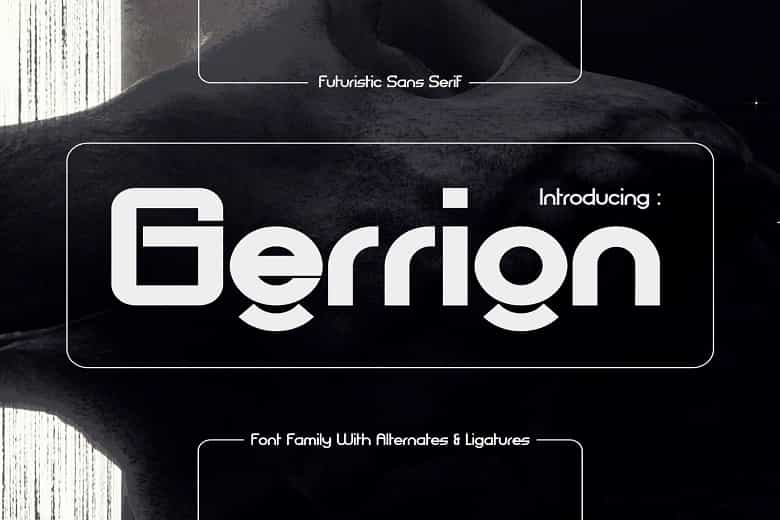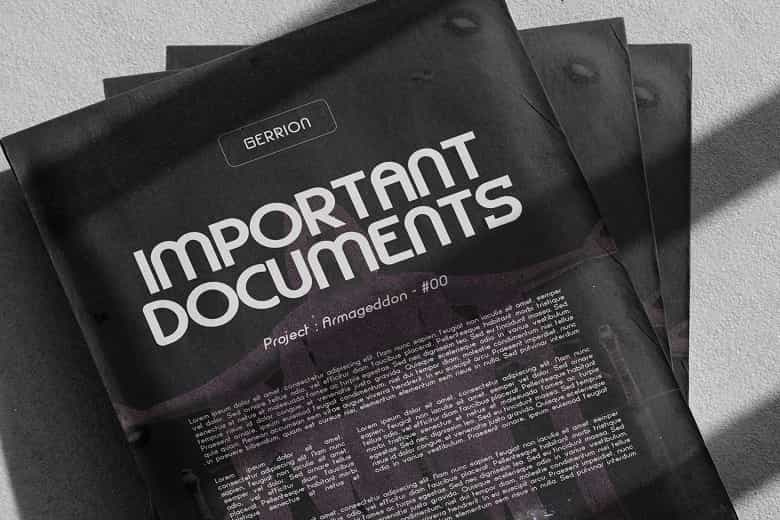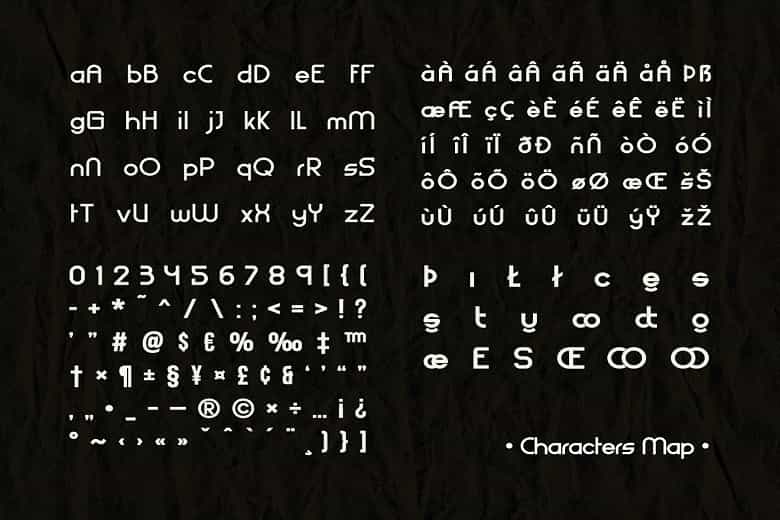
Gerrion is a modern futuristic sans serif typeface that gives off the vibe of the modern world. Gerrion comes in six styles including regular, italic, semibold, semibold italic, bold and bold italic which makes it very useful in design. Gerrion’s letters are very precise and stylized with the neat geometry of shapes. This emphasis on strong lines and fluid surfaces produces a clean and sophisticated look that is well matched with high tech components, new products, and progressive design concepts.